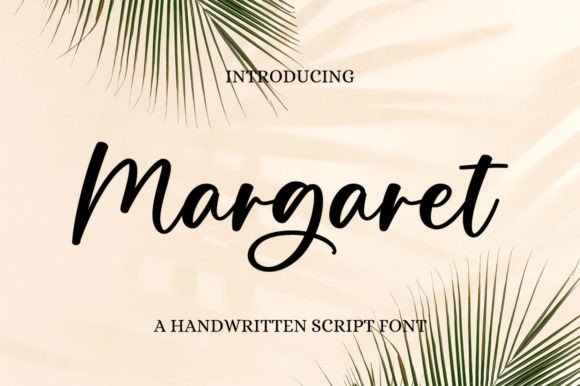
Introducing Margaret Font - A Stroke of Elegance for Your Creative Journey
In a world saturated with digital noise, authenticity and charm have become rare gems. Margaret Font, a breathtaking script font family created by Graphix Line Studio, is here to restore the beauty of handwritten elegance to your digital creations.
Experience the allure of Margaret's delicate strokes and graceful curves, carefully crafted to evoke a sense of intimacy and warmth. Its beautifully balanced characters dance harmoniously across your screen, captivating your audience with their timeless charm.
As a wedding invitation designer, you'll find Margaret to be an invaluable companion. Its elegant flourishes and sweeping lines will transform your designs into exquisite works of art, imbuing them with a sense of romance and timeless sophistication.
For logo designers, Margaret offers a touch of distinction that elevates your creations beyond the ordinary. Its graceful lines and subtle details will leave a lasting impression, ensuring your designs stand out from the crowd.
Margaret's versatility extends beyond the realm of weddings and logos. Its timeless beauty lends itself effortlessly to branding, packaging, social media graphics, and countless other applications. Let Margaret's delicate charm infuse your designs with a touch of elegance that speaks louder than words.